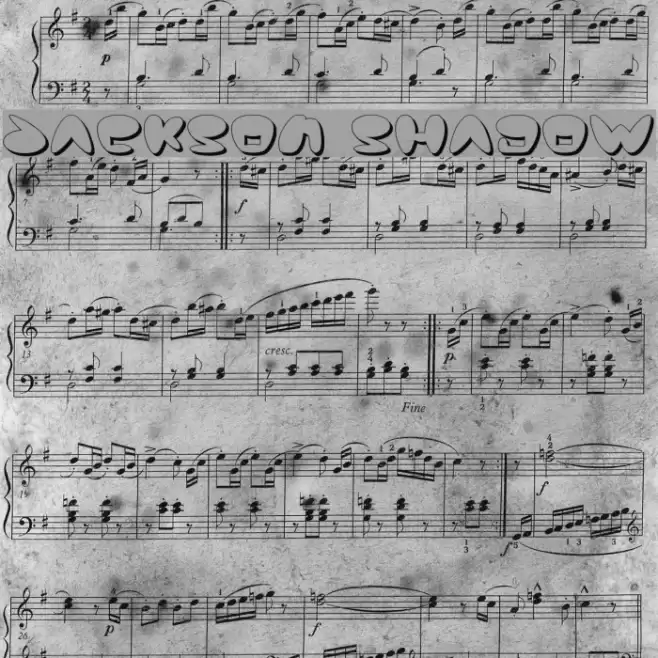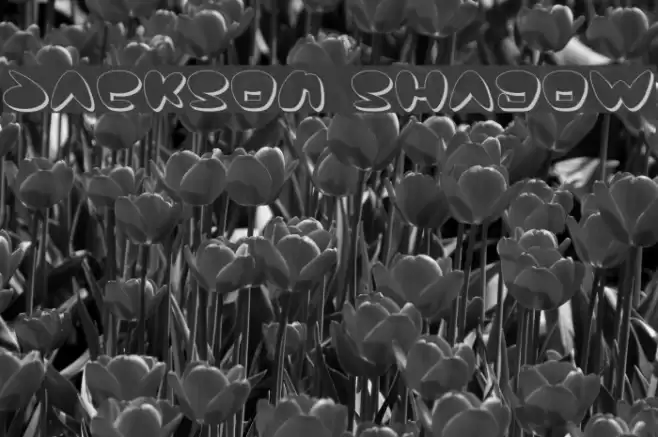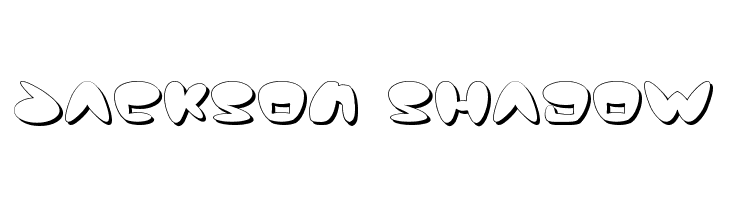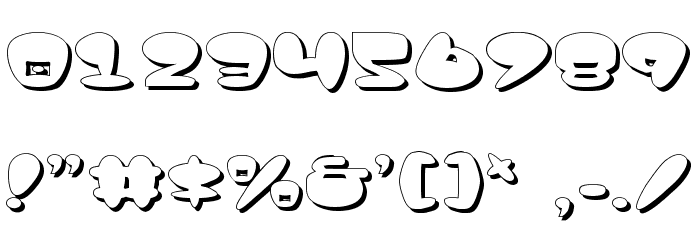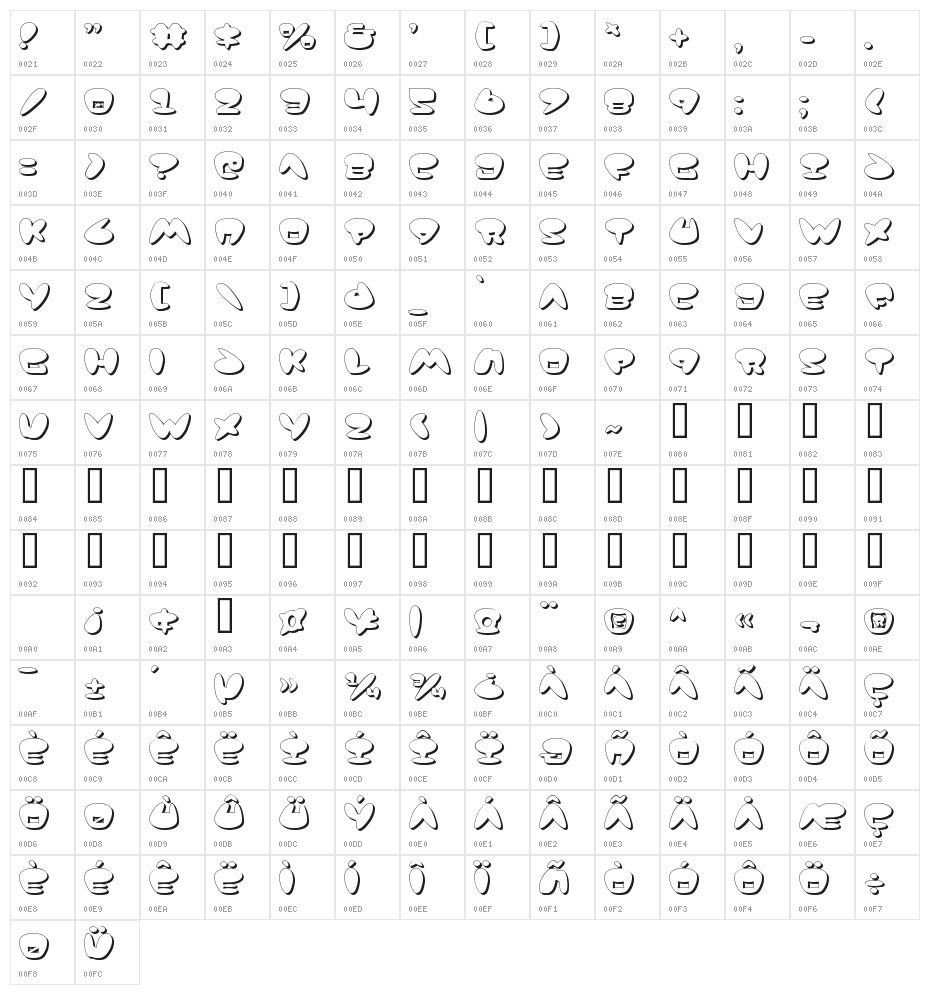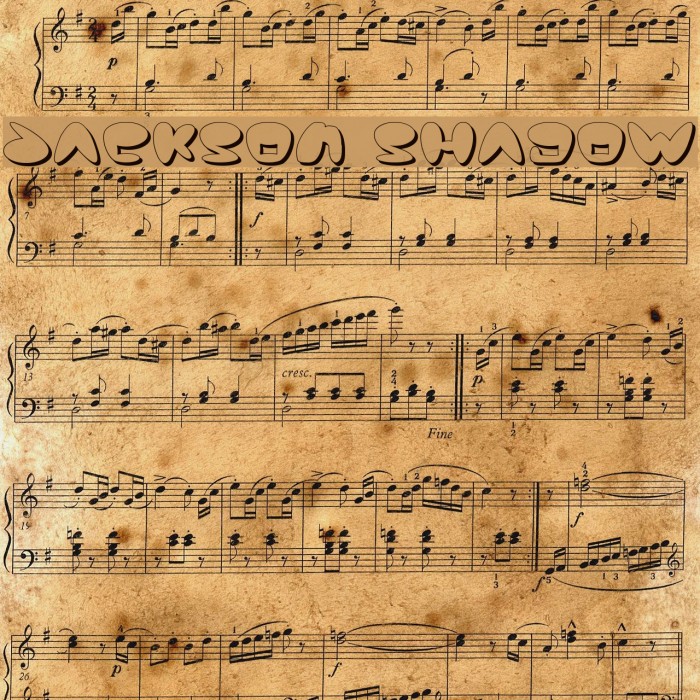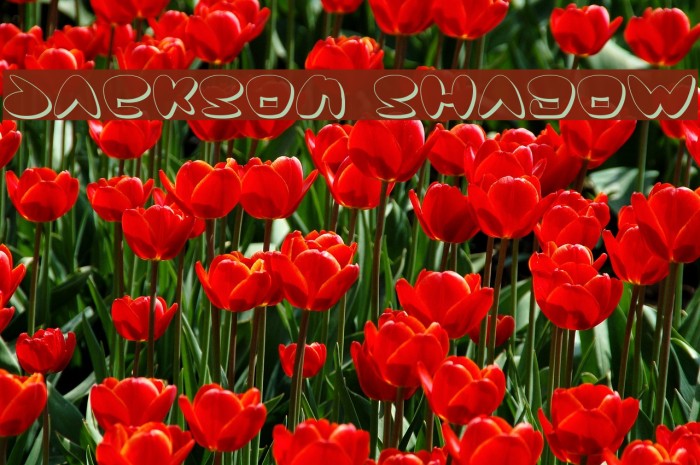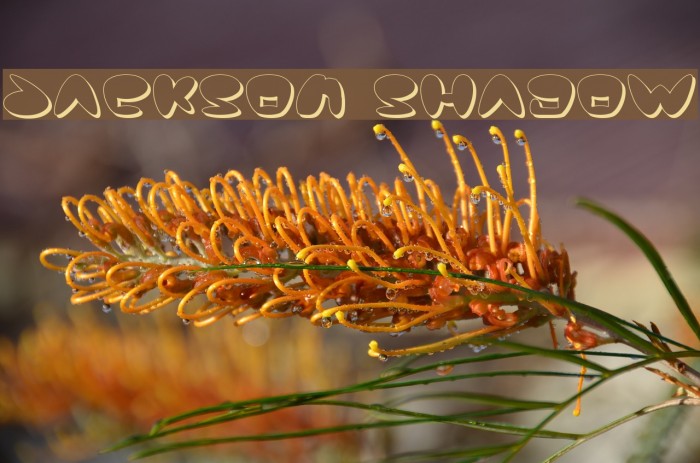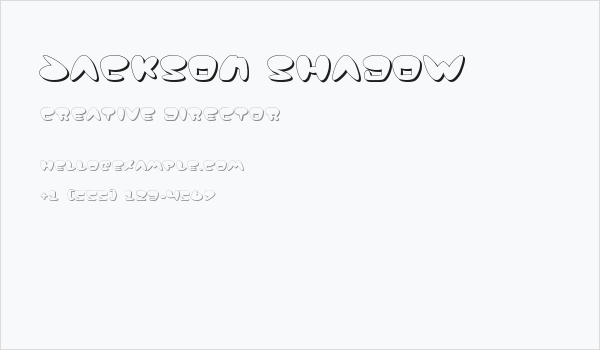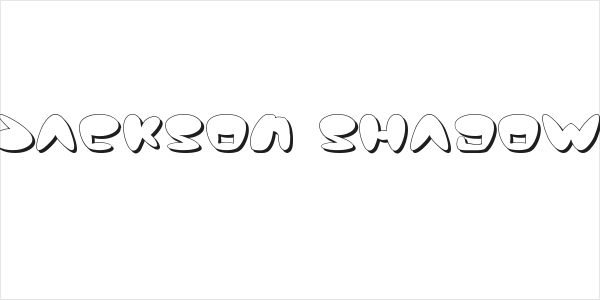
Jackson Shadow Font
Jackson Shadow Description
This playful and bold font features a unique shadow effect that gives each character a three-dimensional appearance. The letters are rounded and bubbly, with a distinct outline that enhances their visibility and adds a fun, cartoonish vibe. The uppercase and lowercase characters maintain a consistent style, while the numbers and special characters complement the overall design with similar playful elements. This font is perfect for projects that require a lively and engaging aesthetic, making it ideal for children's books, comic strips, or playful branding.
A playful, bold font with a 3D shadow effect and rounded, cartoonish characters from Crazy fonts.
- Proposed Projects: Ideal for children's books, comic strips, playful branding, and creative posters.
- Overall Style: Playful, Cartoonish